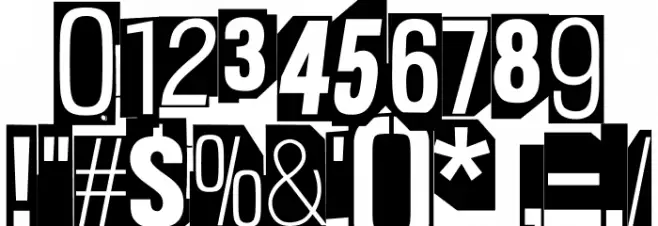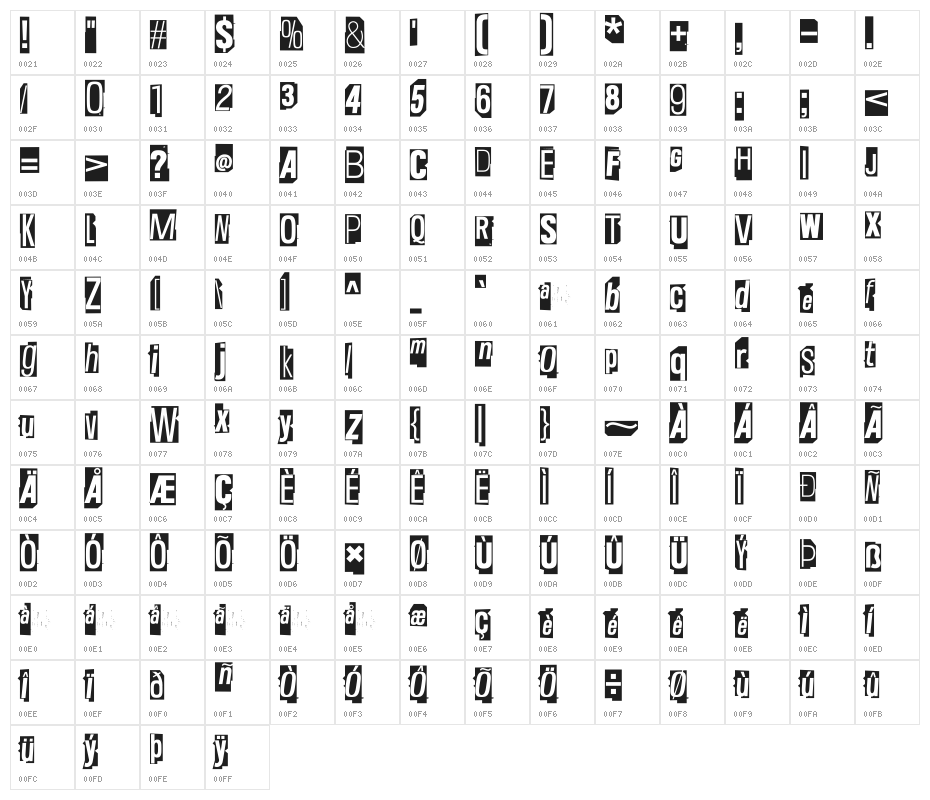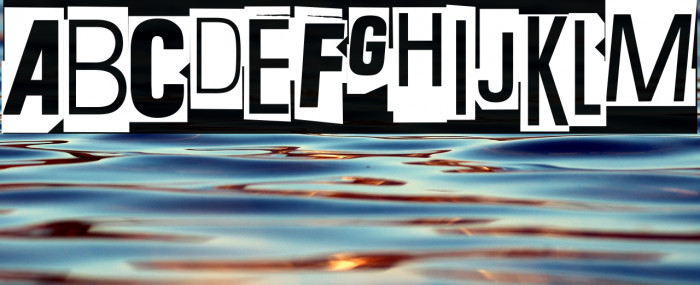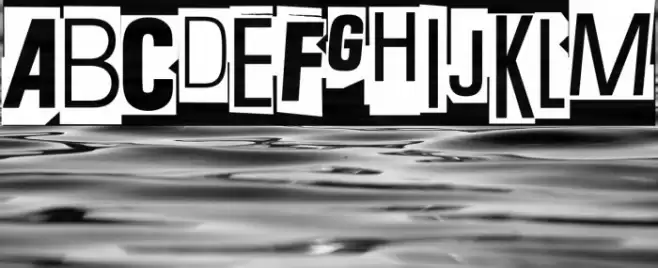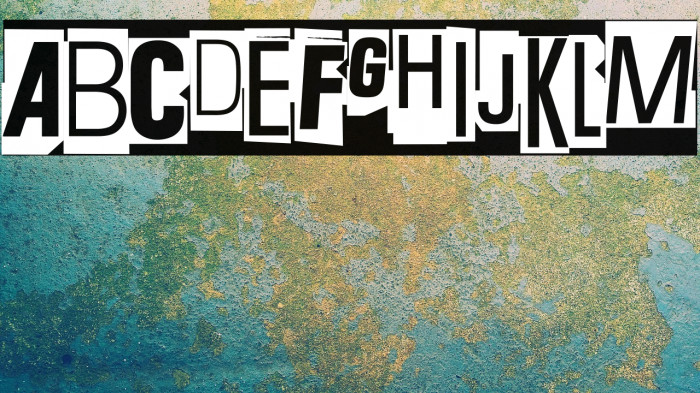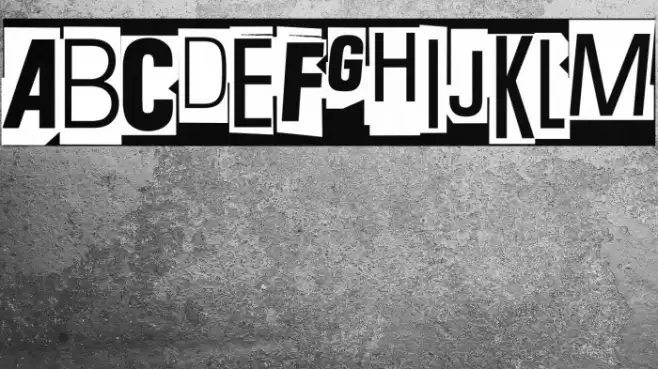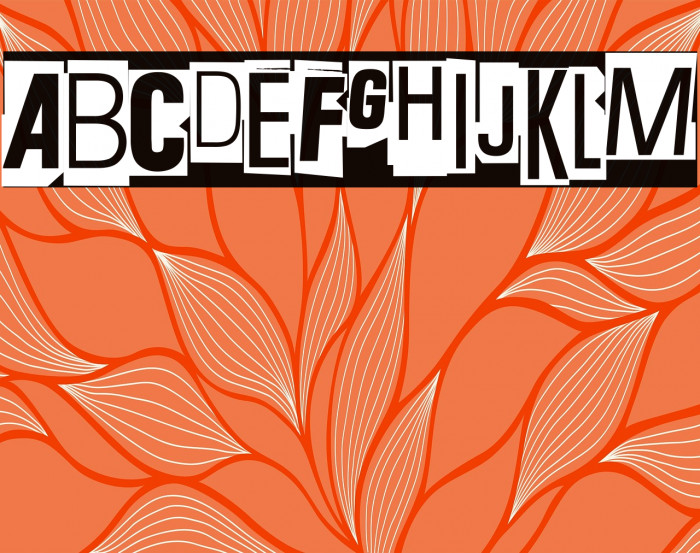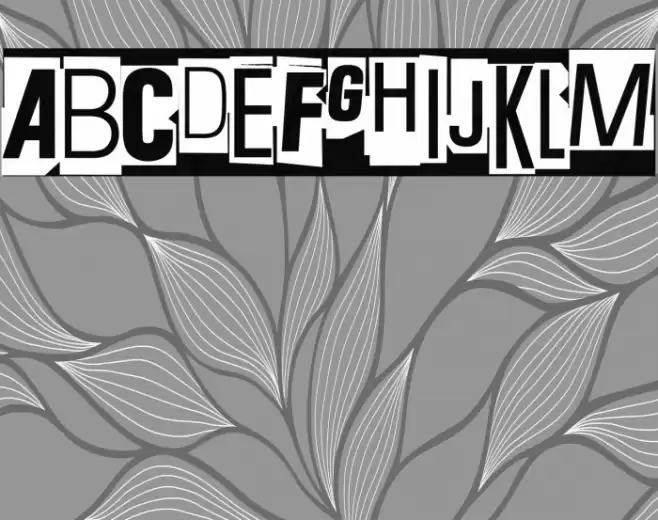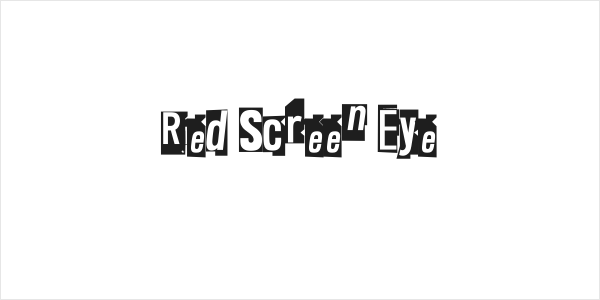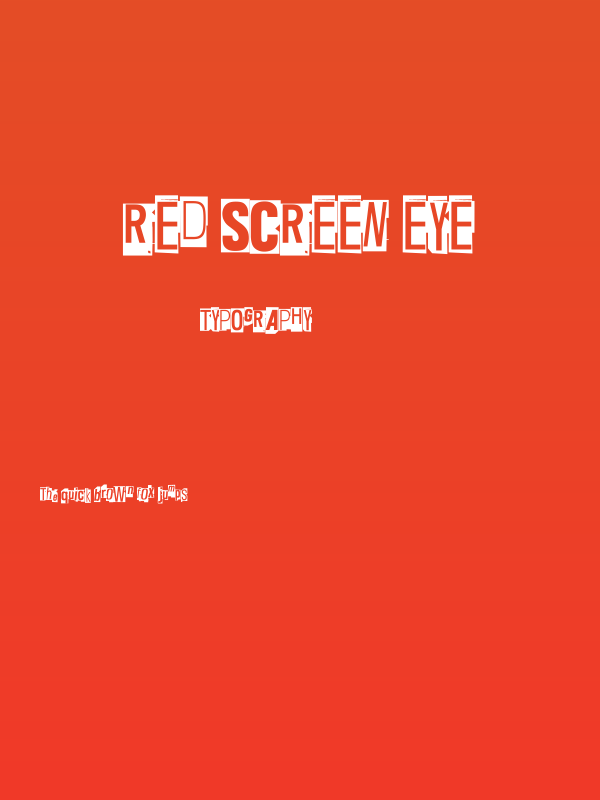
Red Screen Eye Font
This font is a bold and eclectic mix of styles, reminiscent of a ransom note aesthetic. Each character appears to be cut from different sources, creating a collage effect that is both chaotic and visually striking. The uppercase and lowercase letters, along with numbers and special characters, are presented in varying weights and styles, from bold to italicized, and from serif to sans-serif. This diversity in design gives the font a dynamic and unpredictable appearance, making it ideal for projects that require a sense of urgency or rebellion. The characters are tightly spaced, enhancing the crowded and intense look of the text.
| Proposed Projects | Ideal for edgy posters, album covers, rebellious branding, and creative editorial designs. |